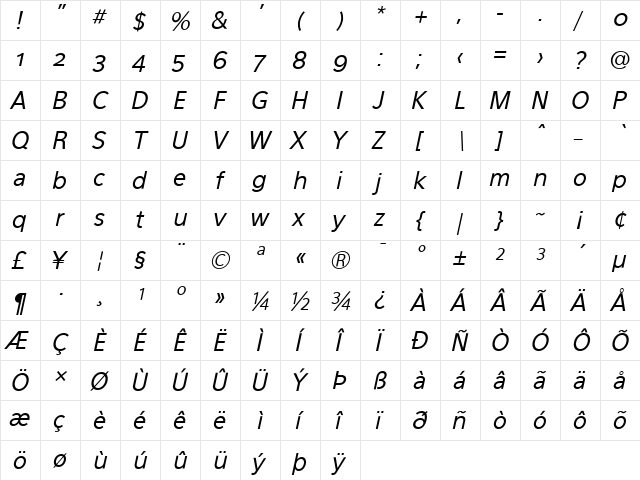
Eau Sans Book Old-styled Figures Oblique
| Foundry | YOFonts |
| Designer | Yamaoka Yasuhiro |
Design Context for Eau Typeface
Eau offers clean, dependable letterforms without strong stylistic allegiance, making it a practical choice for designers who need flexibility. The dynamic lean of this cut emphasises speed and emphasis in any layout.